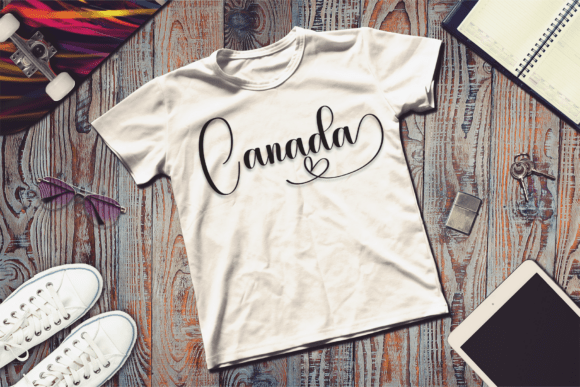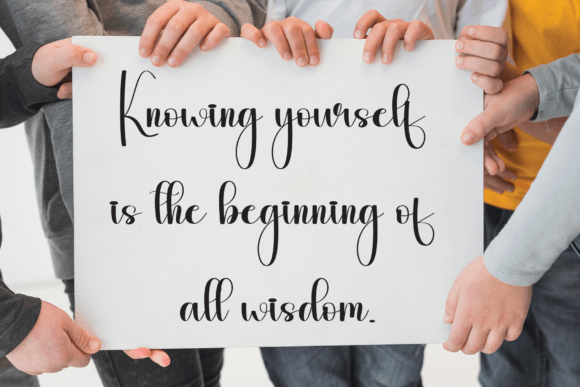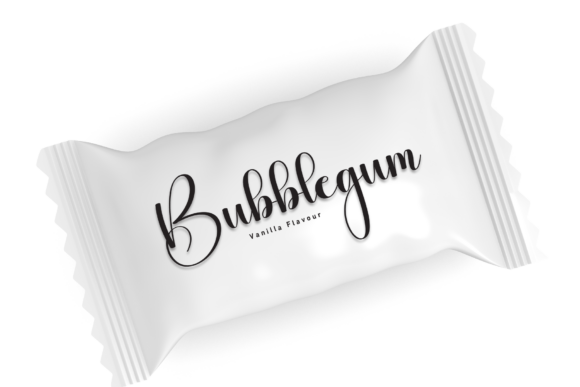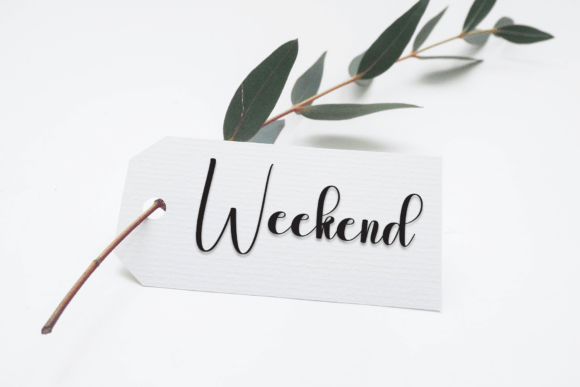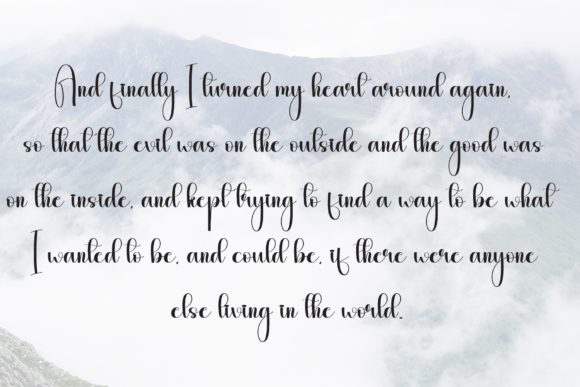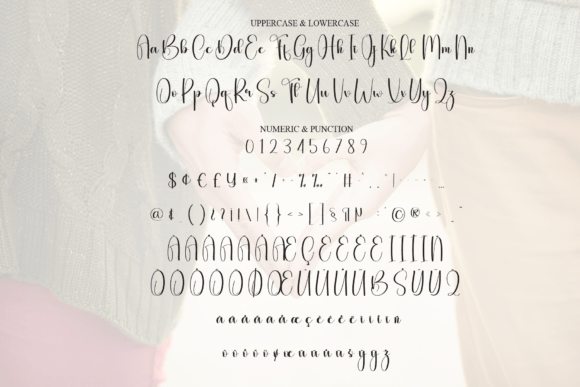
Introduction to Love Together Font
Love Together is a stylish handwritten script font that blends modern elegance with a playful touch.
Its fluid strokes and charming curves bring a personal feel to any design Ideal for logos, packaging, and invitations, this typeface adds warmth, sophistication, and creativity to every project.